Rally was founded in France around 1921 in Colombes, just outside Paris.
it emerged during the cyclecar boom—a period when small, lightweight, and relatively inexpensive cars were in high demand after World War I.
By the end of the 1920s, Rally had expanded its model range. It developed a recognizable winged “Paris Rally” emblem and shifted from pure cyclecars toward more conventional small automobiles
The 1931 models (in the ad below) reflects this transition. Still sporty and compact, but more refined and “complete” as proper cars, styled with stronger Art Deco influence.
Rally became known for good handling, competitive pricing and a slightly more “serious” feel than bare-bones cyclecars.
Like many small manufacturers, Rally struggled as the market changed. Cyclecars fell out of favor and larger automakers (like Citroën and Peugeot) began producing affordable, mass-produced cars.
Economic pressure from the Great Depression hit smaller firms hardest. By the mid-to-late 1930s, the company faded and ceased production.
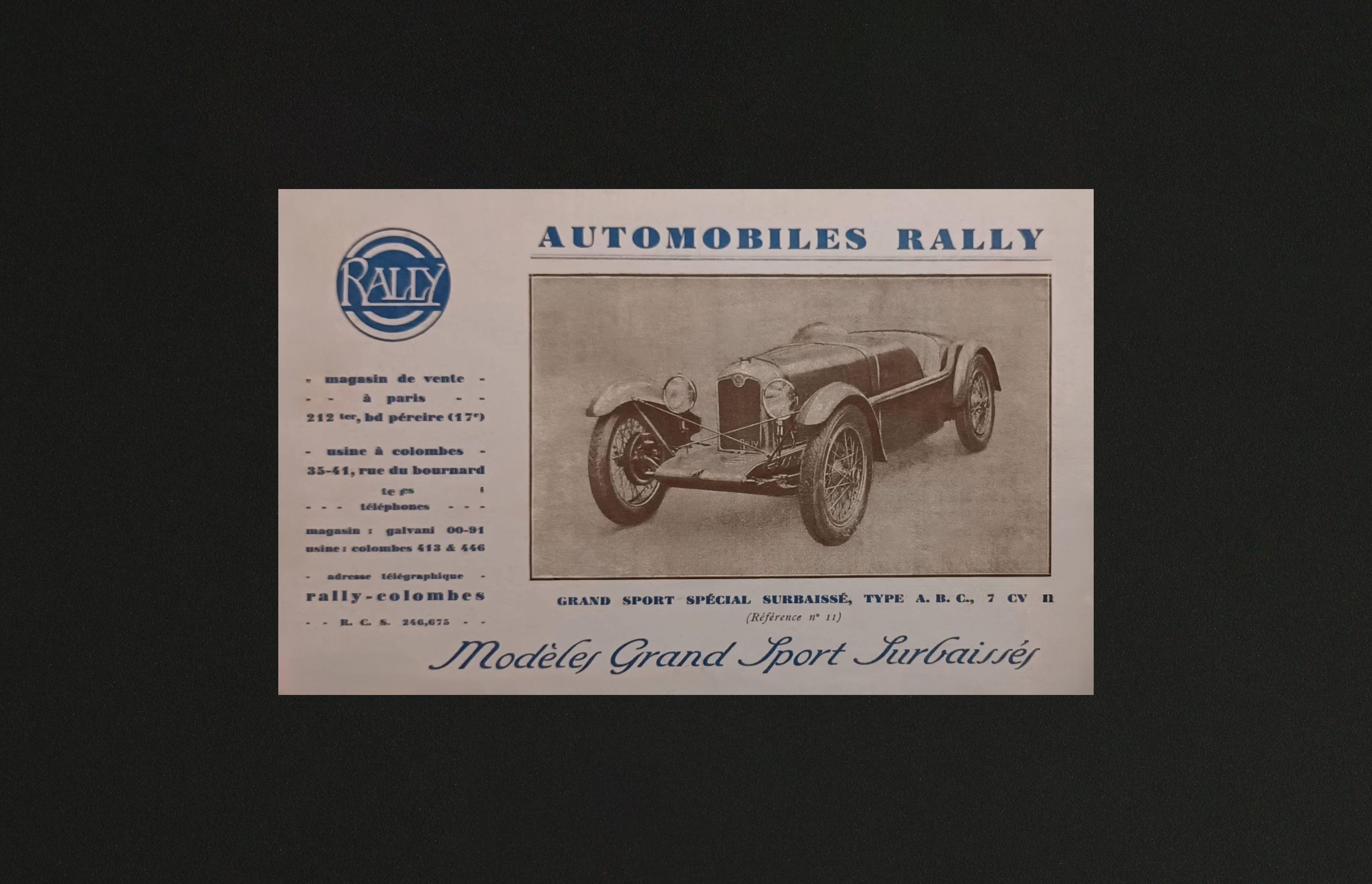
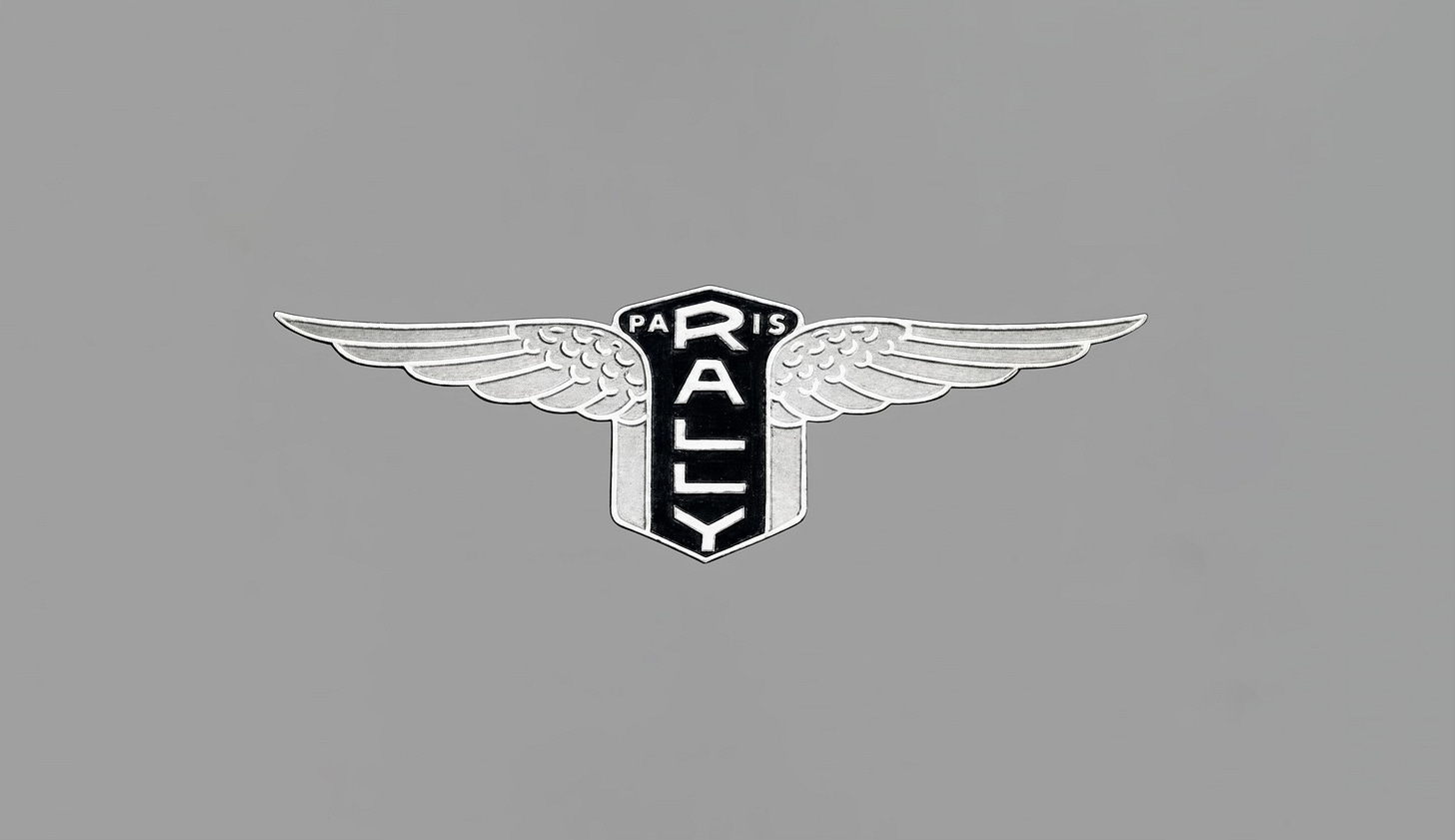
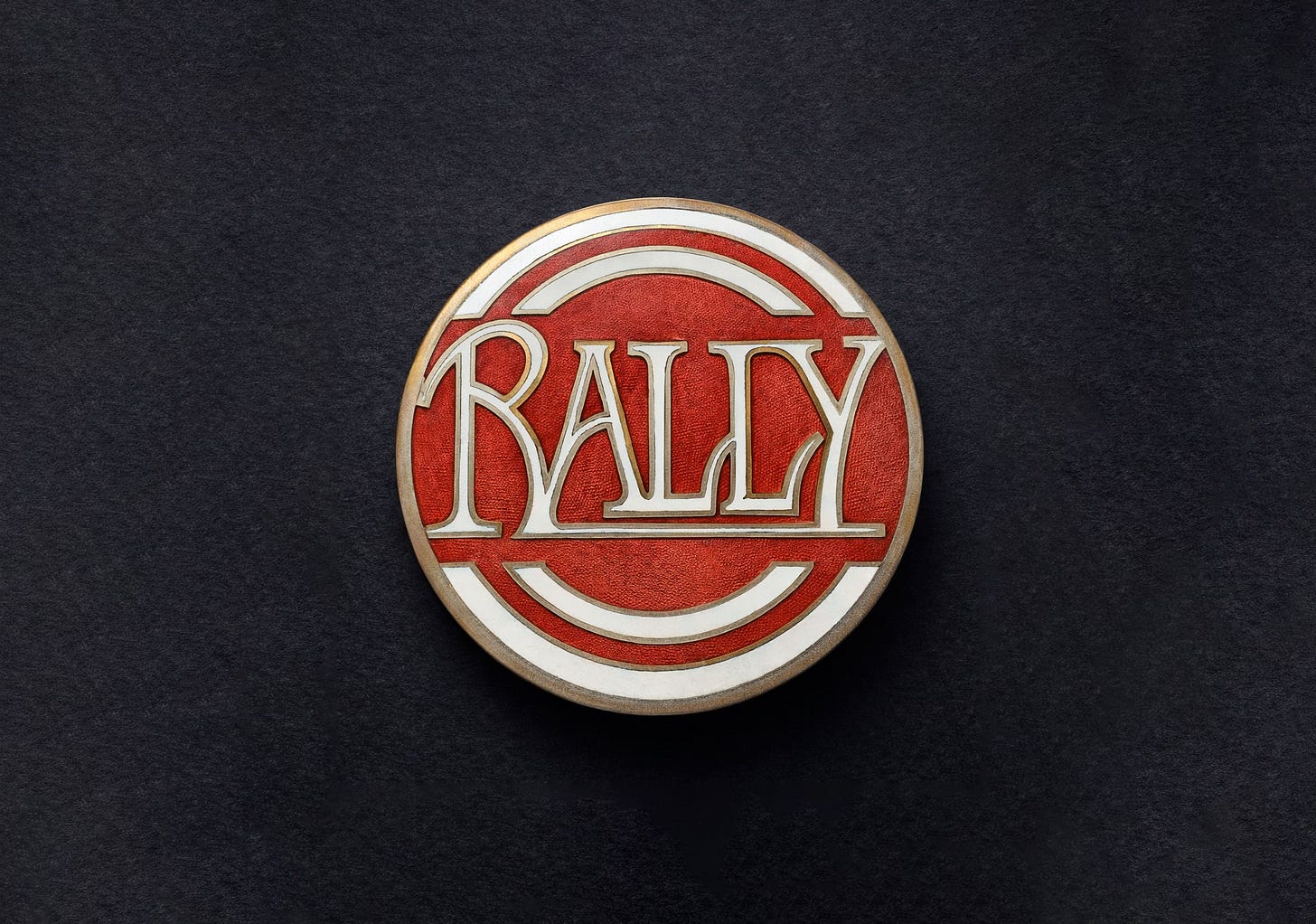
very fine logo